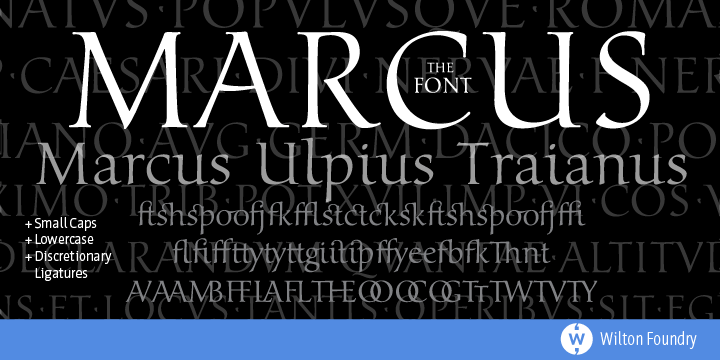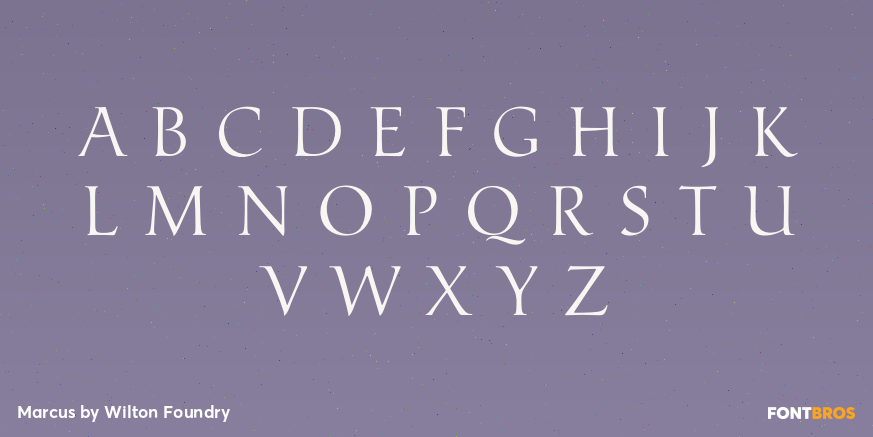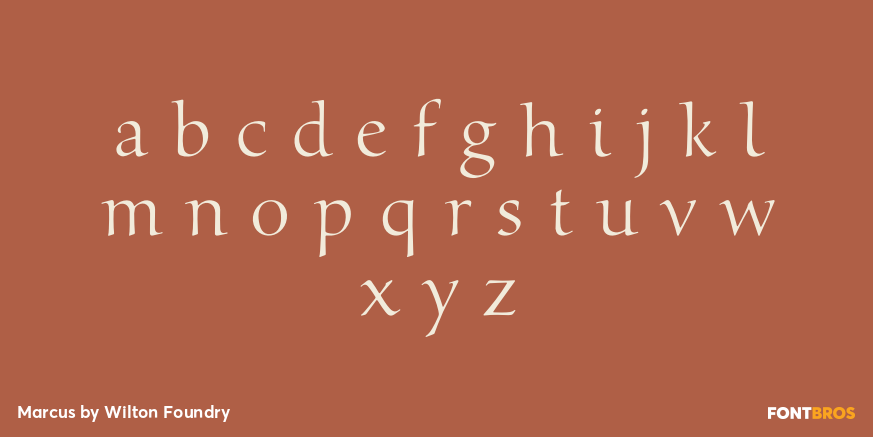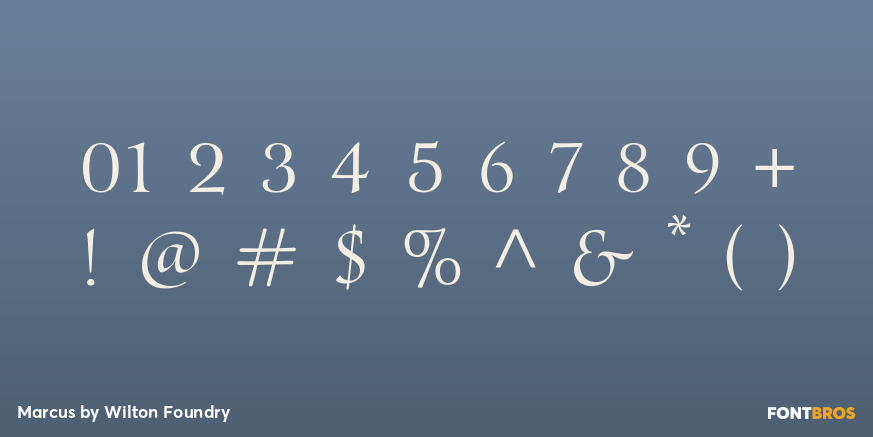
Marcus
Font Family by Wilton Foundry
Marcus, the font, was named after the Roman Emperor Marcus Ulpius Traianus (Trajan). The famous Trajan column was one of Marcus' many landmark monuments he commissioned. Inscriptions at the lower part of the Trajan column display what is considered to be the golden standard of Roman letters.
Father Edward M. Catich (1906 ?1979 ) was an American Roman Catholic priest, teacher, and calligrapher that developed a thesis about the origin of the inscribed Imperial Roman capitals. His thesis makes the claim that the letterforms were entirely based on the use of the flat brush, rather than to the exigencies of the chisel or other stonecutting tools. While the brushed-origin thesis had been proposed in the nineteenth century, Father Catich, having worked as a union sign painter, made a complete study and proposed a convincing ductus by which the forms were created, using a flat brush and then chisel. He promulgated his views in two works, "Letters Redrawn from the Trajan Inscription in Rome" and "The Origin of the Serif: Brush Writing and Roman Letters".
Marcus, the font, was inspired by the notion that the working drawings of the Trajan letters were created by brush. In Marcus you will see glimpses of brush and chisel, producing a refined end-result that is a timeless interpretation of the Trajan column's exquisite letterforms. Marcus has upper & lower case characters as well as small caps and many discretionary ligatures accessible via Opentype. Marcus is ideally suited for headlines or body text in advertising, packaging and collateral material. In addition, Marcus is well suited for high profile invitations and identities.